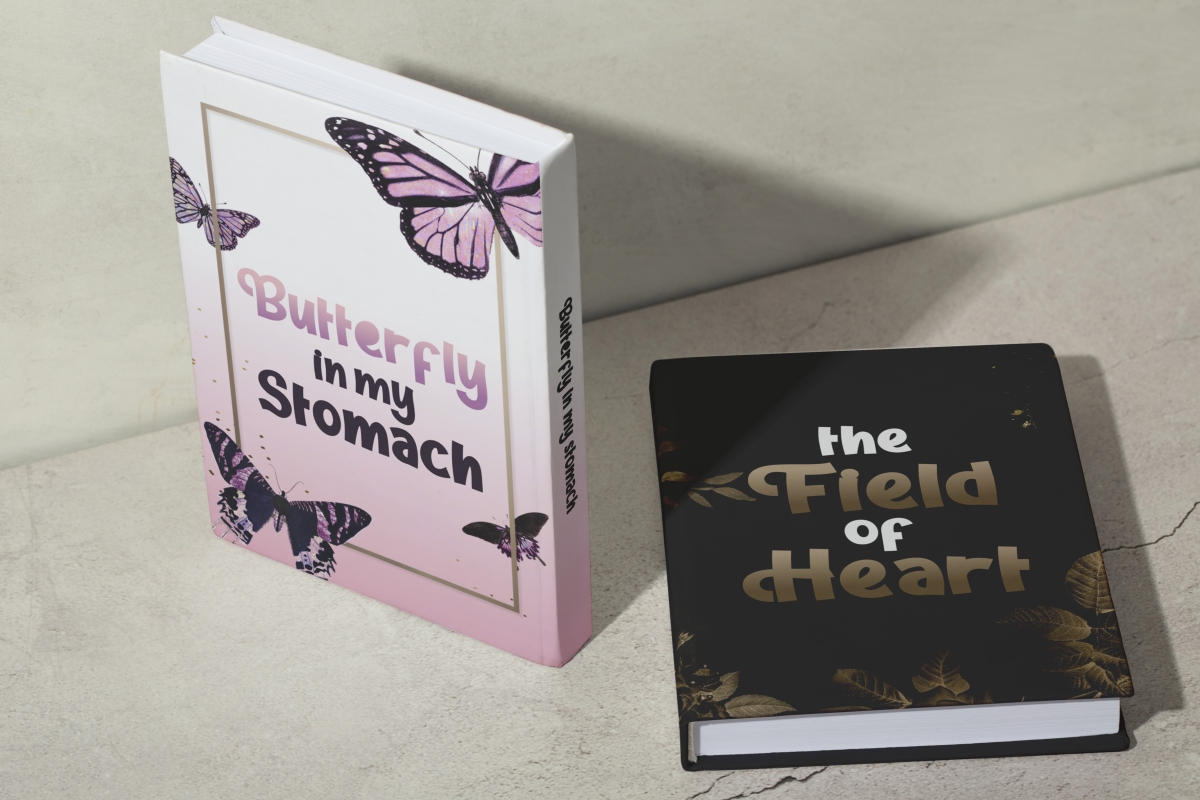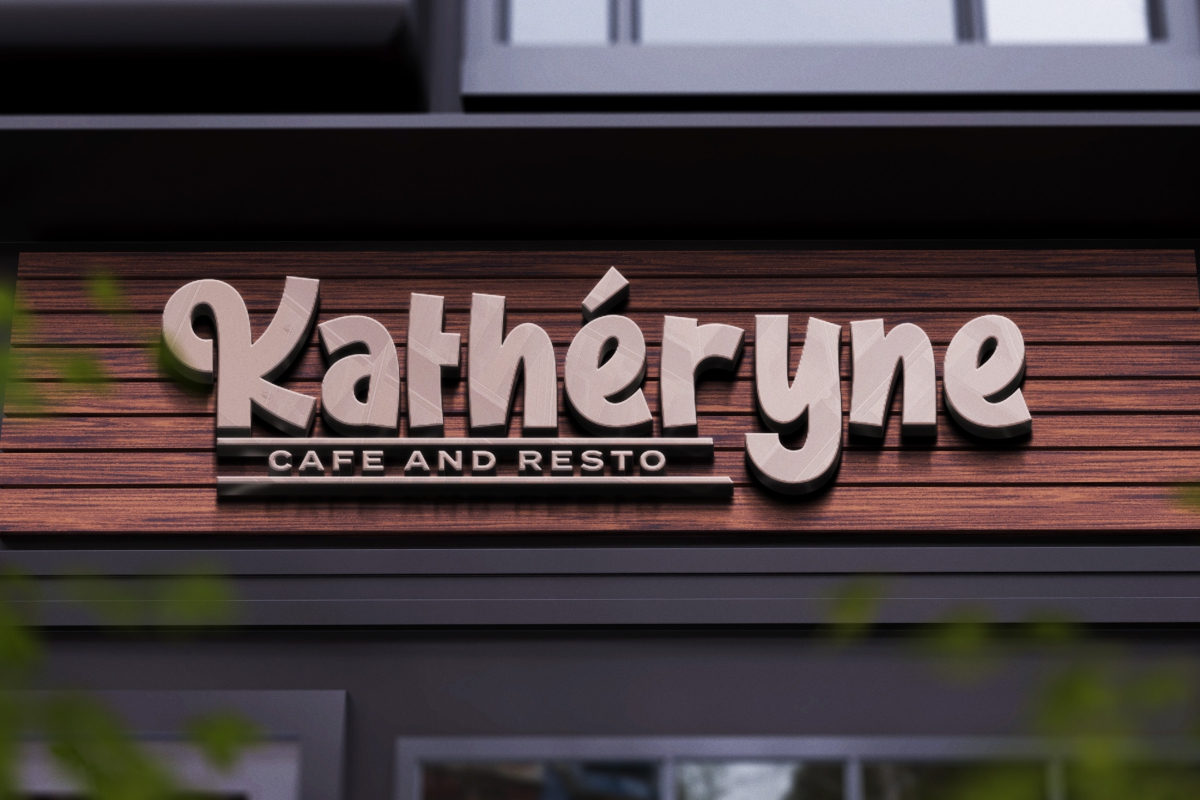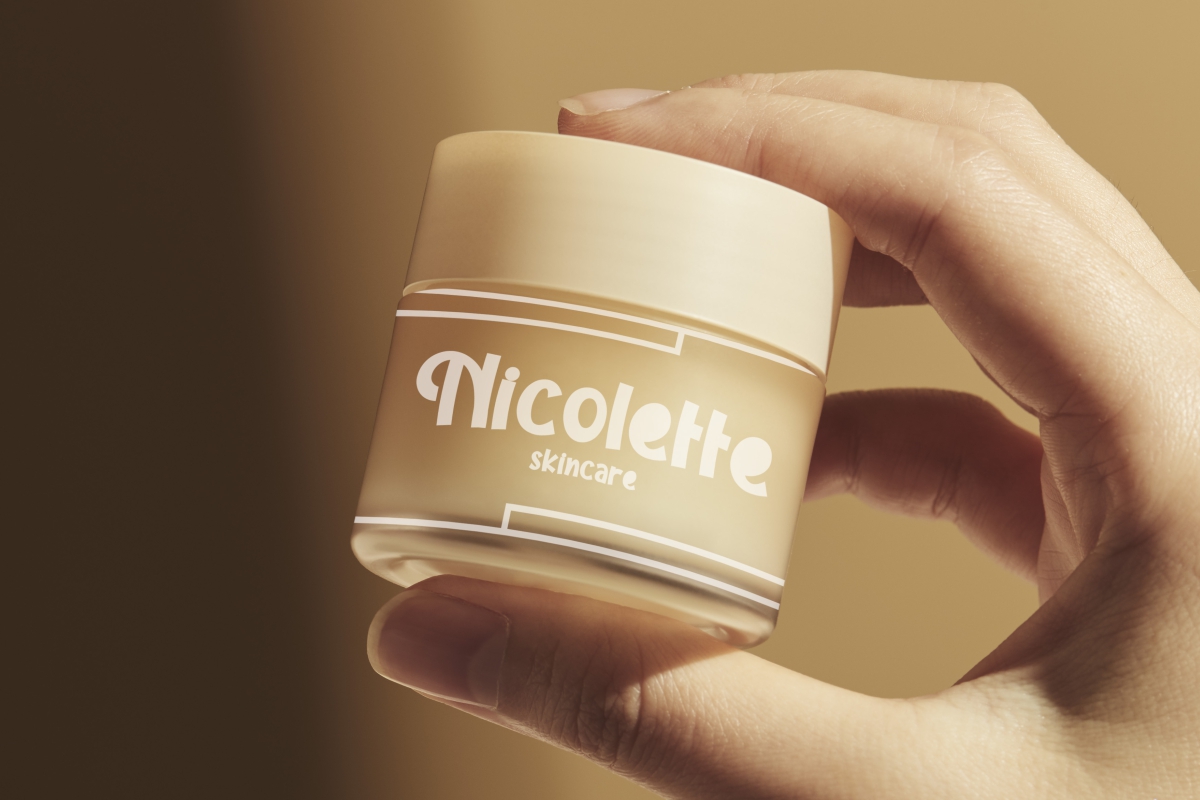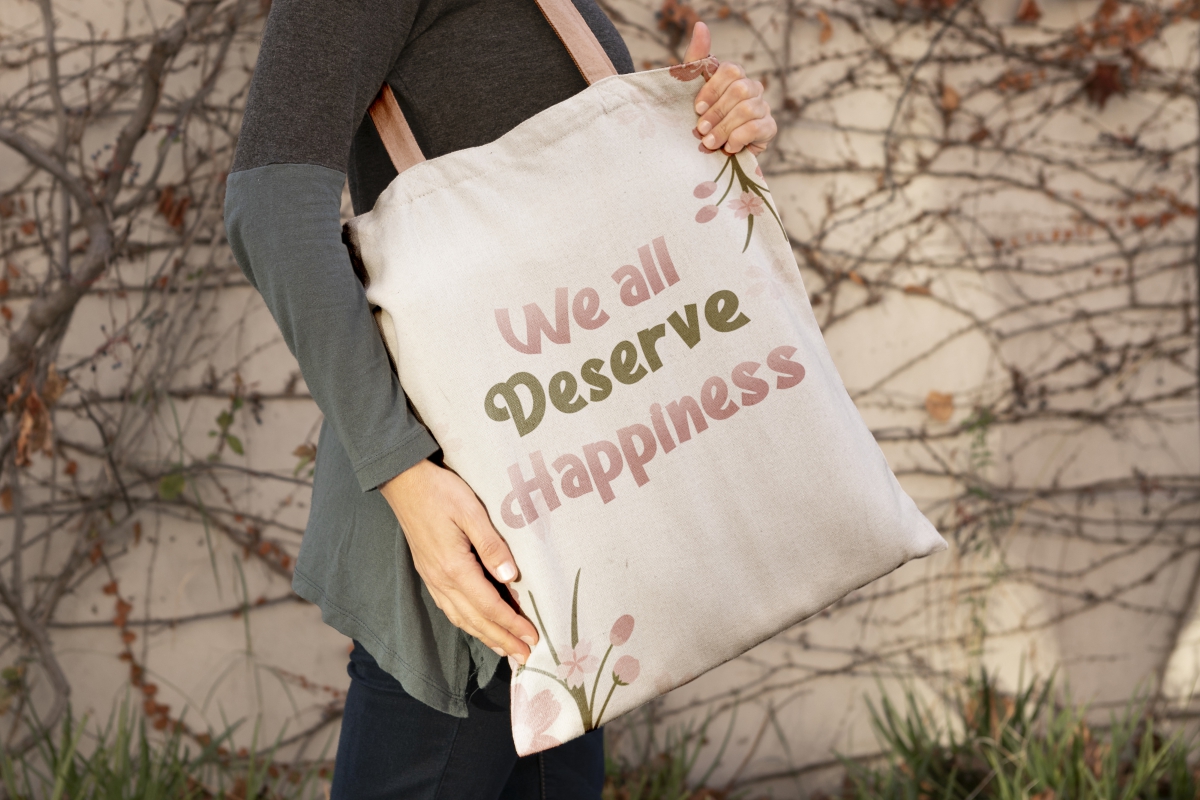
Teenage Lady Font
Teenage Lady Display Font is a playful handwritten font with vintage style. This font has two styles offered, namely Regular and Bold, which will give your designs a stylish look, such as brand logo, cover, header, label, quotes, screen print, signage, sticker, watermark, and much more!